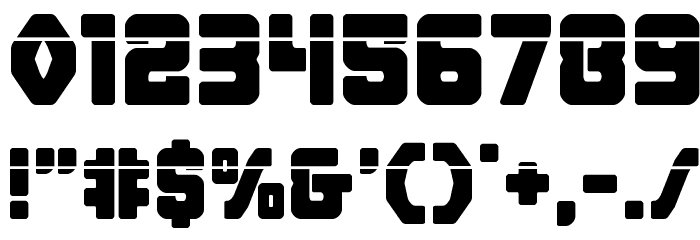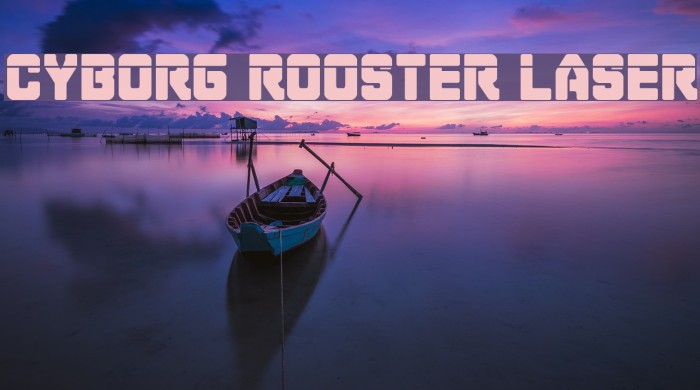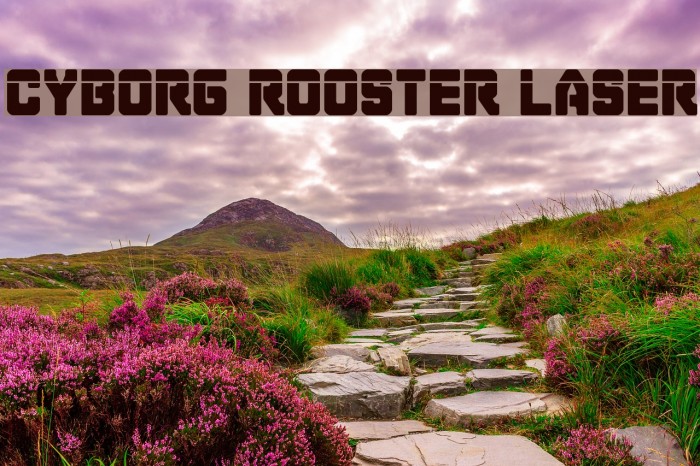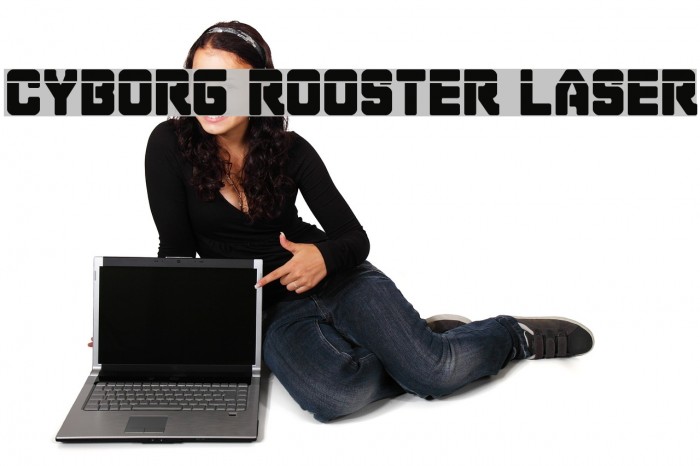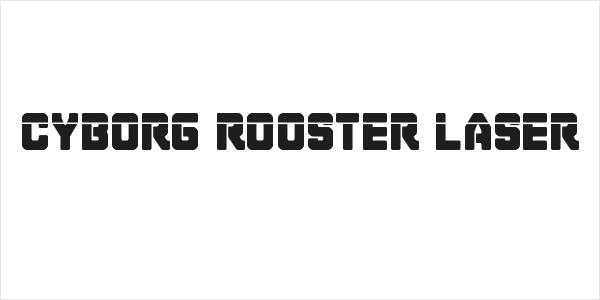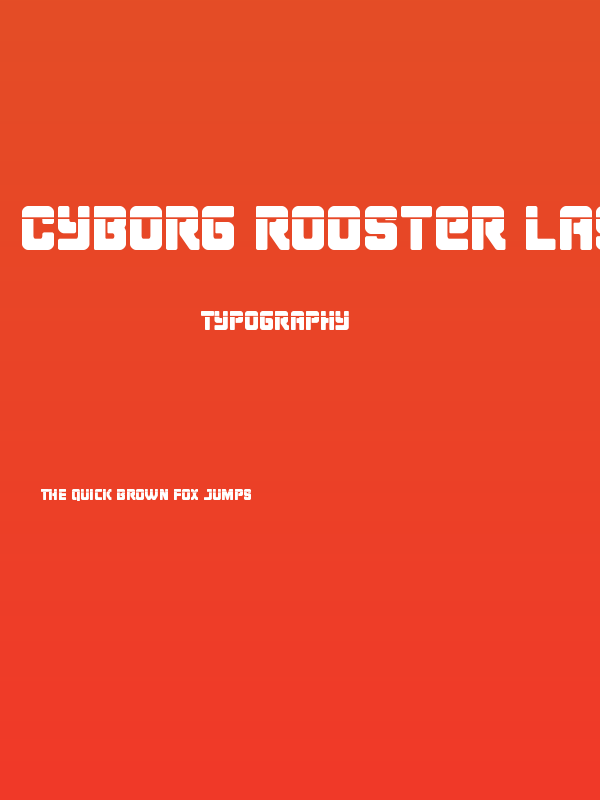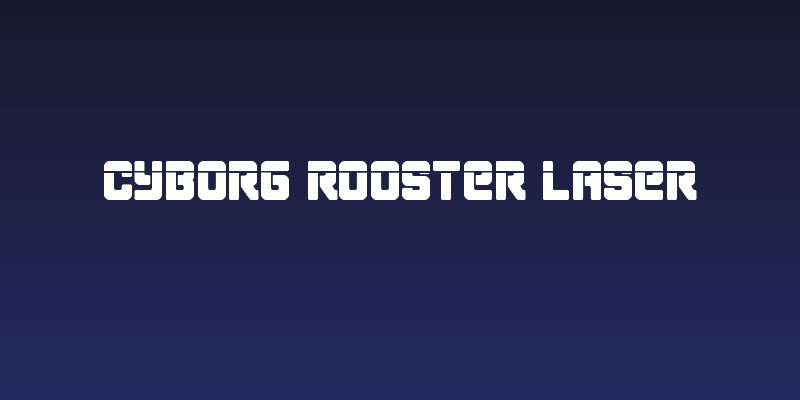
Cyborg Rooster Laser Font
Cyborg Rooster Laser Description
This font features a bold and futuristic design, characterized by its geometric and angular shapes. The letters are constructed with a solid, block-like appearance, giving it a strong and impactful presence. The font's style is reminiscent of digital or sci-fi themes, making it suitable for projects that require a modern and technological aesthetic. The uniformity in stroke width across characters ensures a cohesive look, while the distinct cutouts within the letters add a unique and edgy flair. This font is ideal for creating attention-grabbing headlines, posters, or branding materials that aim to convey innovation and forward-thinking.